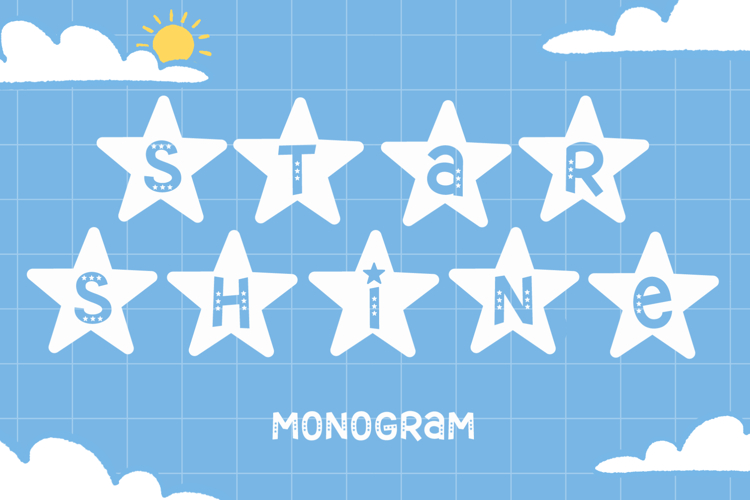
Starshine Monogram
Celebrate bright moments and creative adventures with Starshine Monogram, a delightful decorative font that combines playful lettering with charming star-shaped frames. Inspired by summer skies and happy memories, this font brings warmth, fun, and creativity into every design project.
Starshine Monogram works wonderfully for birthday invitations, summer party decorations, classroom resources, baby products, scrapbook layouts, handmade gifts, and social media graphics. The combination of clean lettering and charming star details creates a balanced design that feels both fun and easy to read. Add a little sparkle to names, initials, and custom creations with a font that celebrates imagination and creativity.
Starshine Display Features :
- Swashes(a-z), Titling(a-z), Ligatures